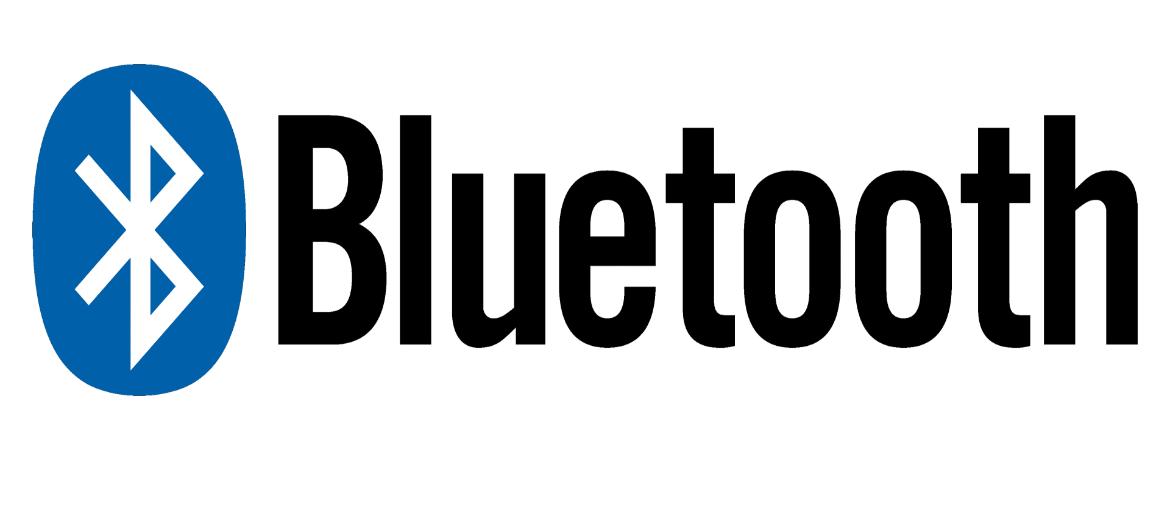
Bluetooth Font
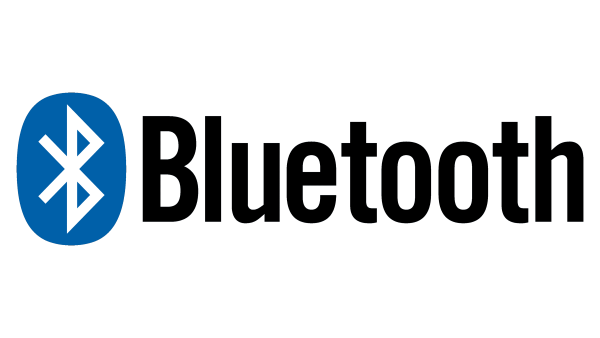
What Font is Bluetooth?
The Bluetooth Font is most likely Franklin Gothic Pro Medium Condensed, the typeface used in Bluetooth’s logo and branding. It is a condensed sans-serif font with strong vertical strokes, tight spacing, and a bold, technical look, giving the Bluetooth wordmark a modern, efficient, and highly readable appearance. The compact letterforms reflect the brand’s focus on wireless technology, connectivity, and precision.
About Bluetooth
Bluetooth is a wireless communication technology introduced in 1998. It allows devices such as smartphones, headphones, speakers, computers, and wearables to connect and exchange data over short distances. Bluetooth has become one of the most widely used wireless standards in the world, enabling billions of devices to communicate seamlessly.
The Bluetooth logo and visual identity are designed to be simple, modern, and instantly recognizable. The clean, condensed typography reinforces the brand’s role as a reliable, efficient, and universal technology for wireless connectivity.